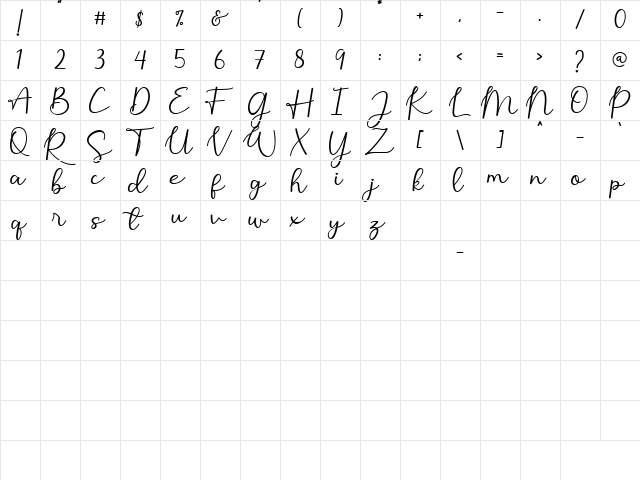
Monallesia Script Regular
Design Context for Monallesia Script Typeface
Monallesia Script brings a calligraphic fluidity to the page — its connecting strokes and expressive curves give it an unmistakably human quality.
Font Pairing: Combine Monallesia Script with a simple geometric sans for maximum contrast — the tension between flowing curves and clean structure is a classic typographic pairing.
Pro Tip: Pair Monallesia Script with a clean sans-serif for supporting text. The contrast between fluid script and geometric structure creates an elegant typographic hierarchy.